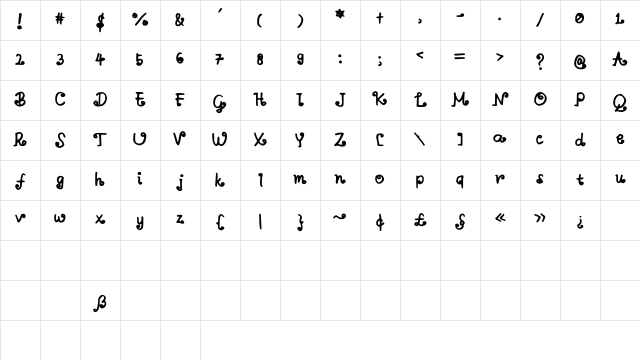
ASwirlVelvet Medium
Design Context for ASwirlVelvet
ASwirlVelvet is built around its visual character rather than neutral utility - its distinctive forms are designed to make an impression at display sizes.
Font Pairing: Pair with a clean neutral sans-serif for body copy to let ASwirlVelvet's character lead without overwhelming the composition.
Pro Tip: Use ASwirlVelvet exclusively at display sizes - it was designed to be seen, not read at length. Let a neutral companion handle body copy.